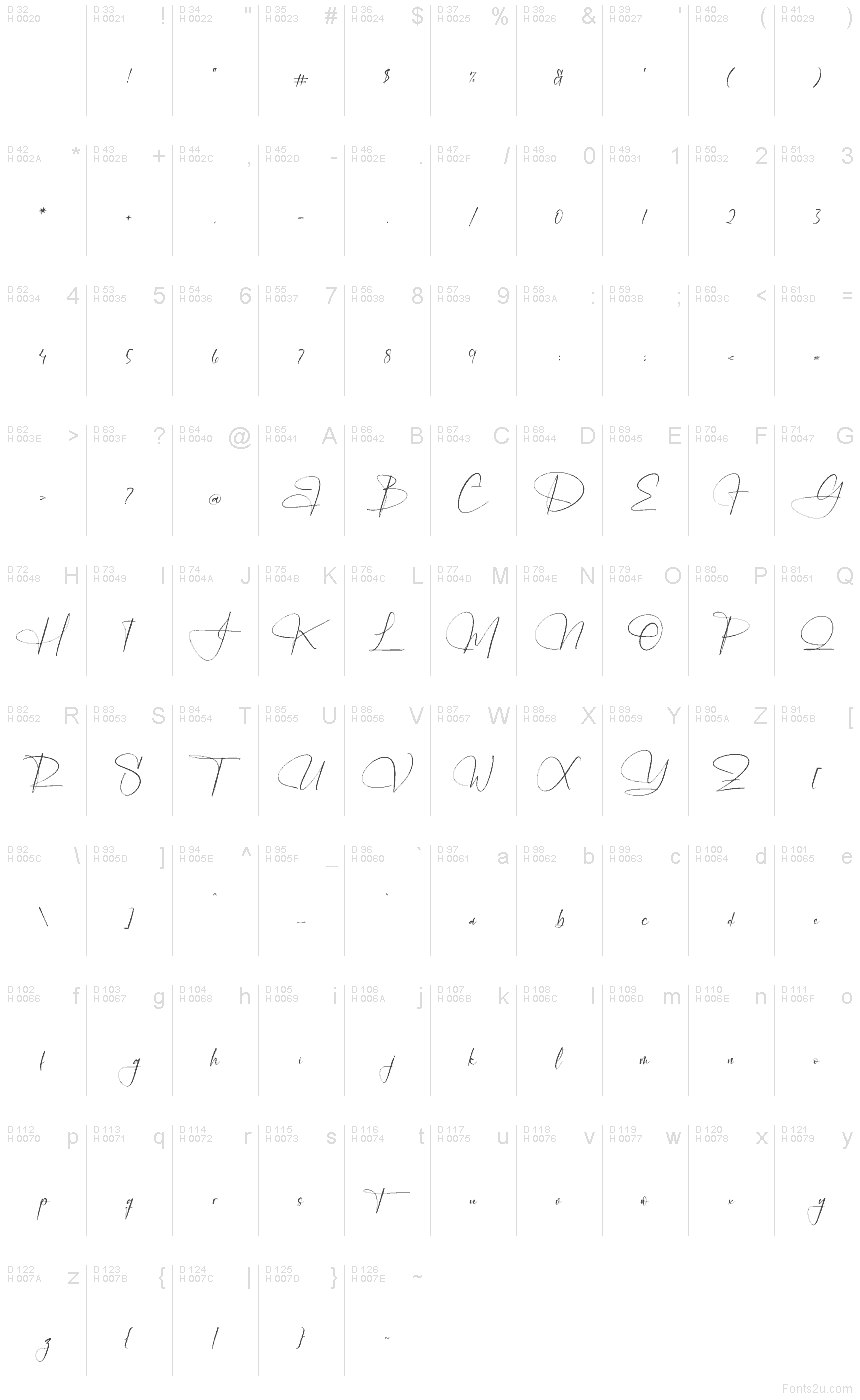
Molahesta
Molahesta font by Storytype Studio is a free light signature handwritten script font. It solves a common brief: give me drama without losing clarity. Airy hairline strokes, extended swashes, and a relaxed baseline create a graceful, breathy rhythm, while the spacing stays open enough to read at a glance. The lines feel inky and effortless, as if lifted straight from a high-end calligrapher’s notebook.
Using Molahesta, headlines glide and branding feels bespoke. This free font shines on wedding suites, boutique logos, beauty packaging, photography watermarks, social banners, and event posters. The elongated terminals add luxury, but the steady cadence keeps it practical in short phrases and names. Pair with a quiet geometric sans in small caps to ground the flourish and let the signature sing.